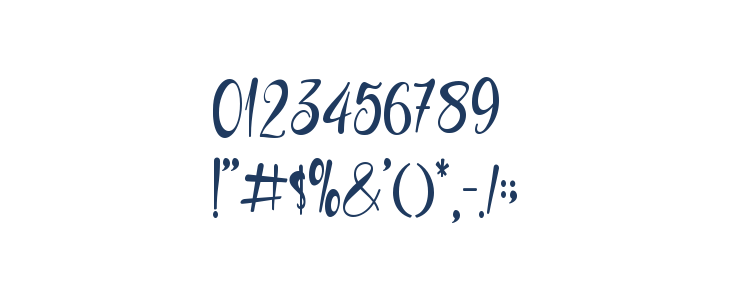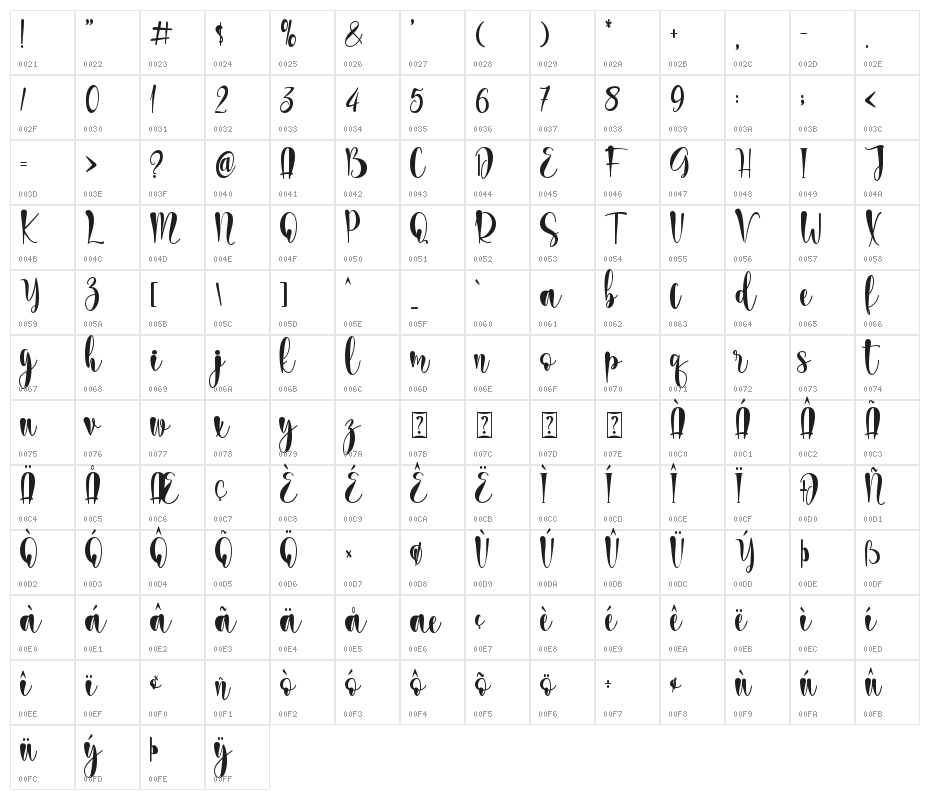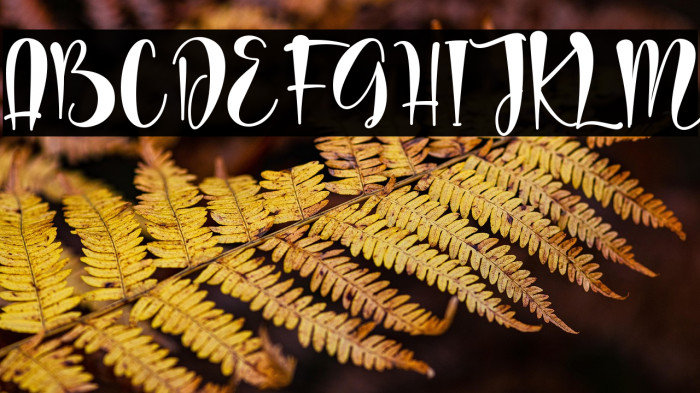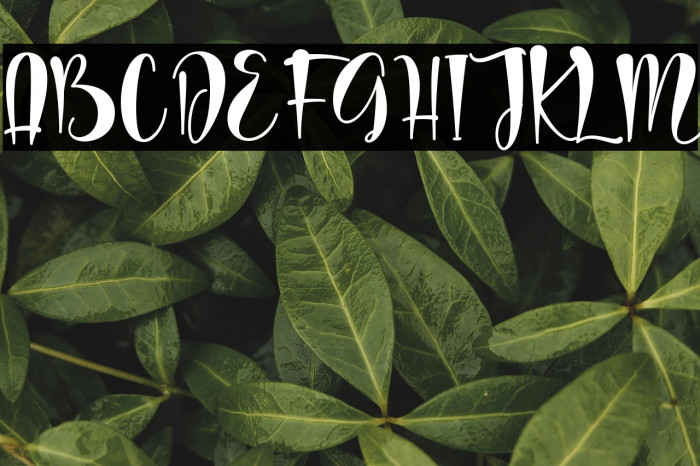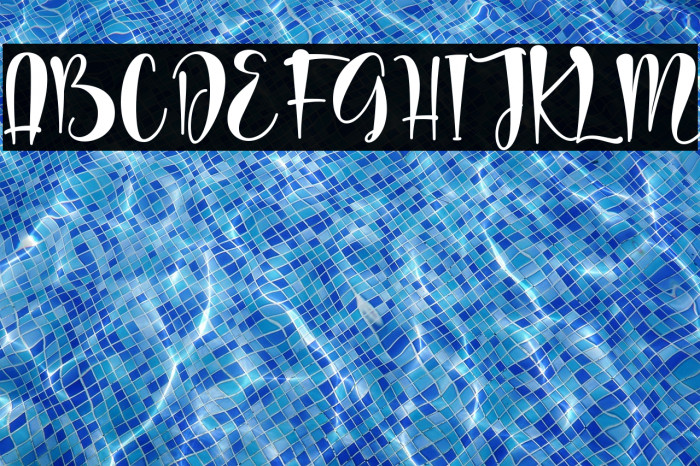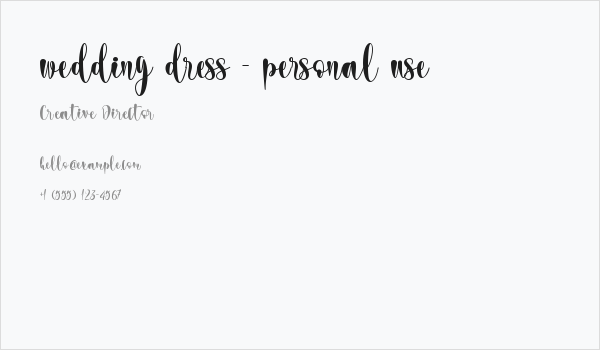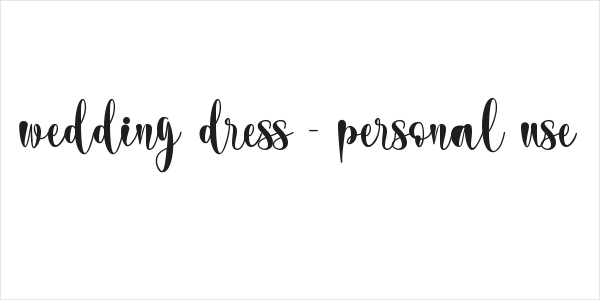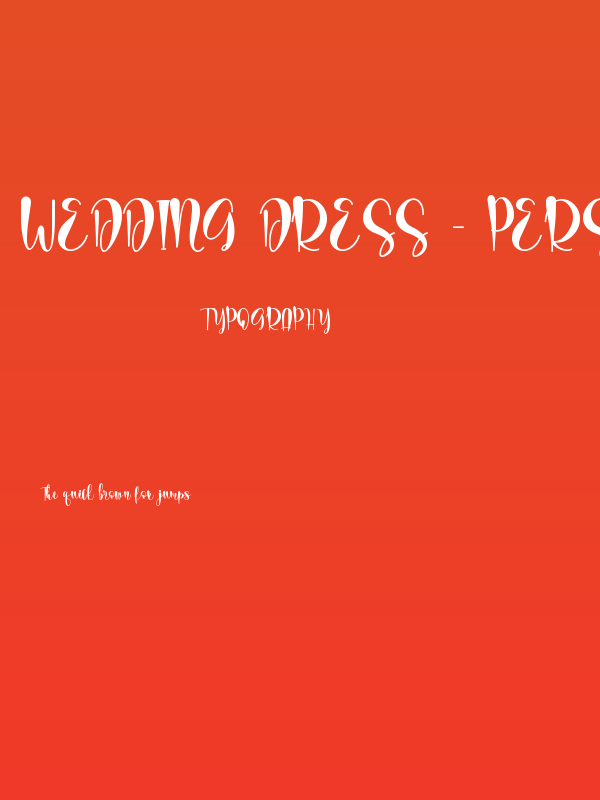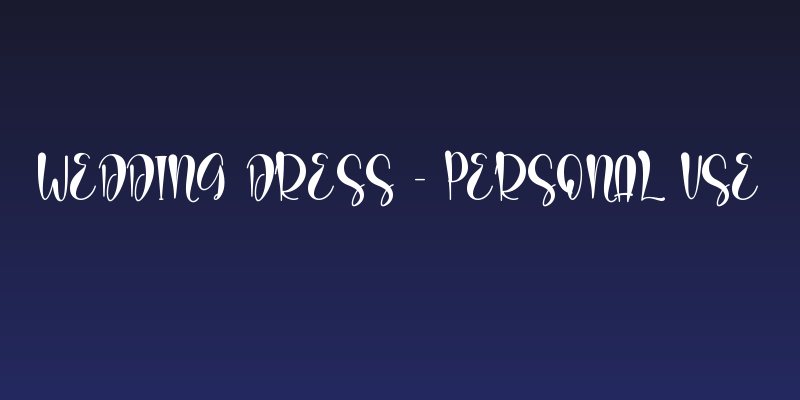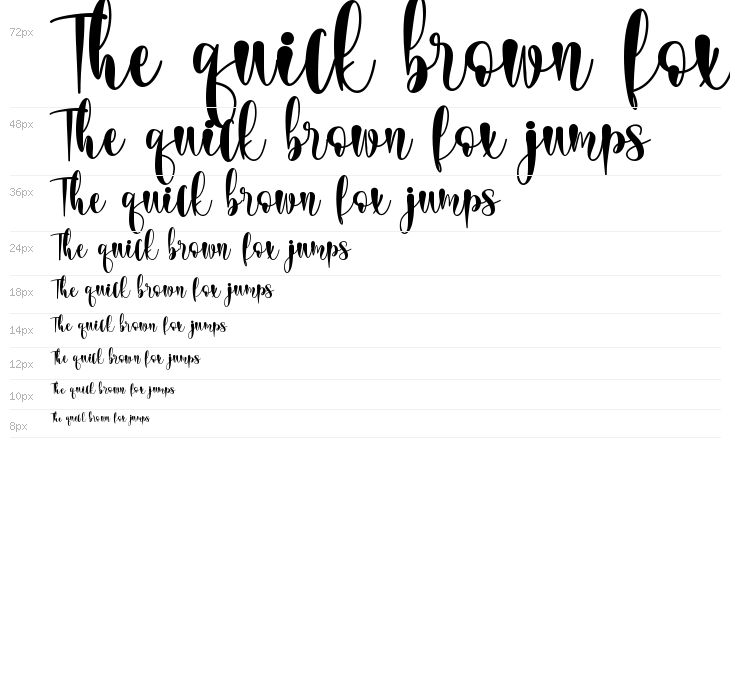
wedding dress - personal use Font
wedding dress - personal use Description
This font exudes a romantic and elegant flair, characterized by its flowing, cursive style that mimics the fluidity of handwriting. The letters are artistically crafted with varying stroke widths, adding a dynamic and lively feel. The uppercase letters are bold and prominent, while the lowercase letters maintain a graceful and delicate appearance. The numerals and special characters are consistent with the overall aesthetic, ensuring a cohesive look. This font is perfect for projects that require a touch of sophistication and charm.
| Proposed Projects | Ideal for wedding invitations, greeting cards, personal branding, and decorative projects. |